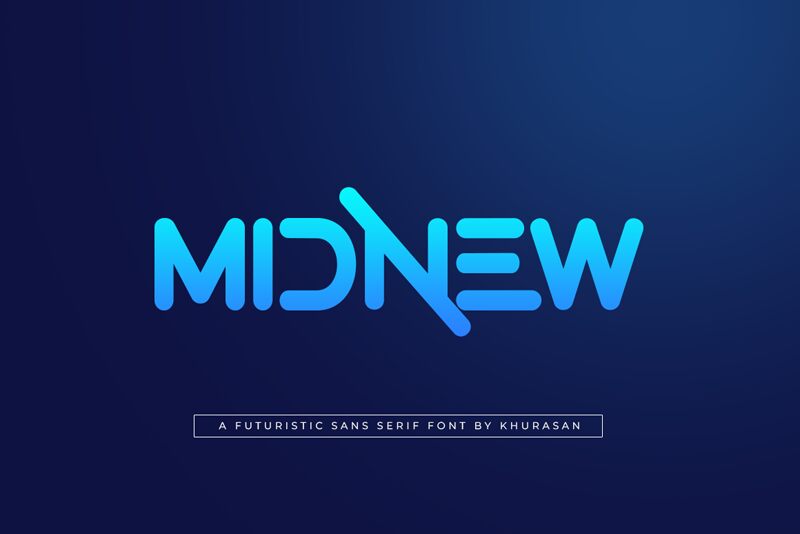
Midnew, the bold and futuristic display font designed by Khurasan, is the perfect choice for projects looking to make a bold statement. Its semi-expanded width adds a touch of uniqueness to any design, while its strong and modern lines demand attention. Midnew’s bold weight is ideal for headlines, titles and logos that need to stand out from the crowd. This versatile font works well for a wide range of projects including technology-related designs such as app logos, gaming titles and science fiction book covers. Embrace the future with Midnew – your go-to semi-expanded bold typeface!